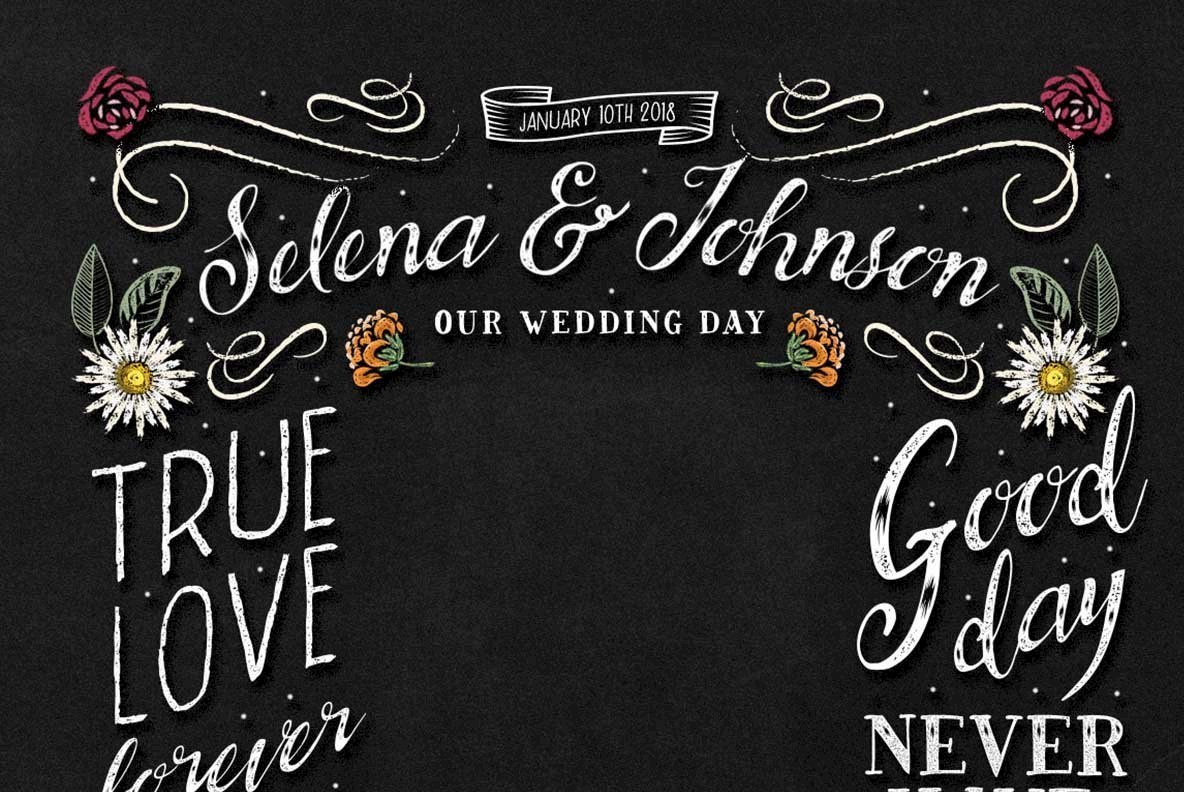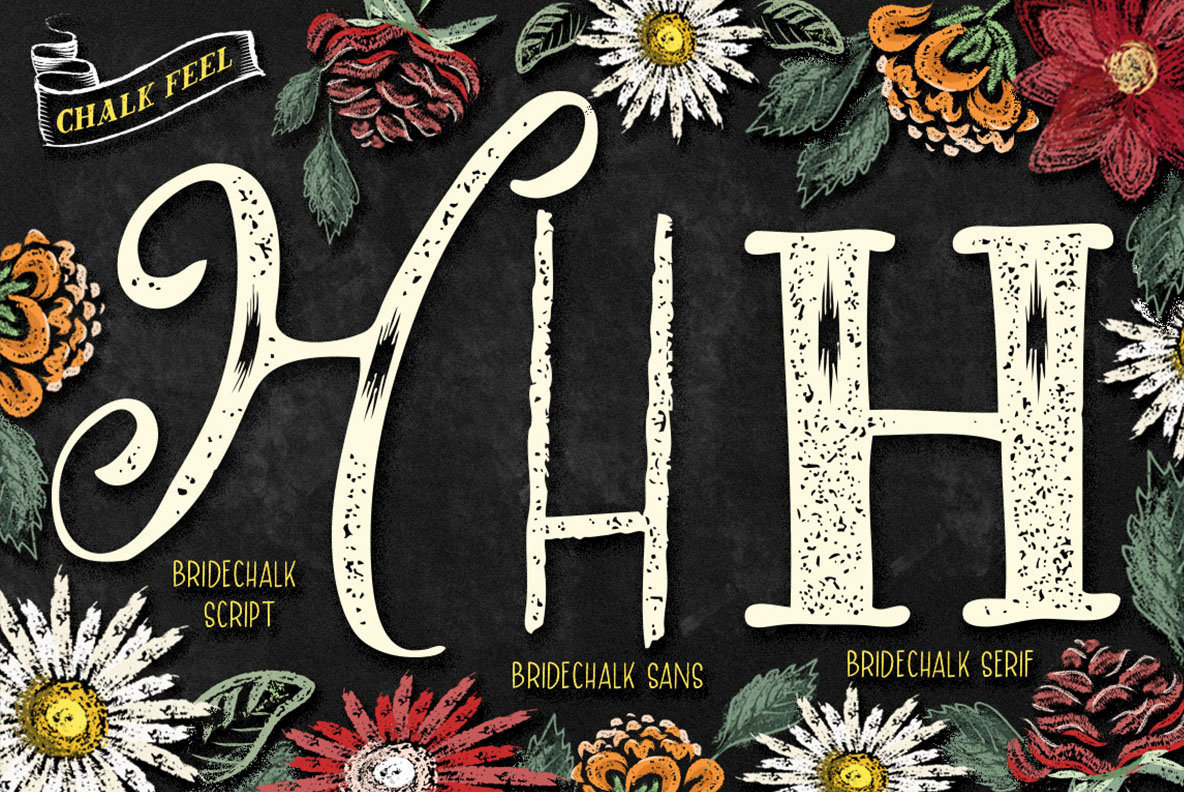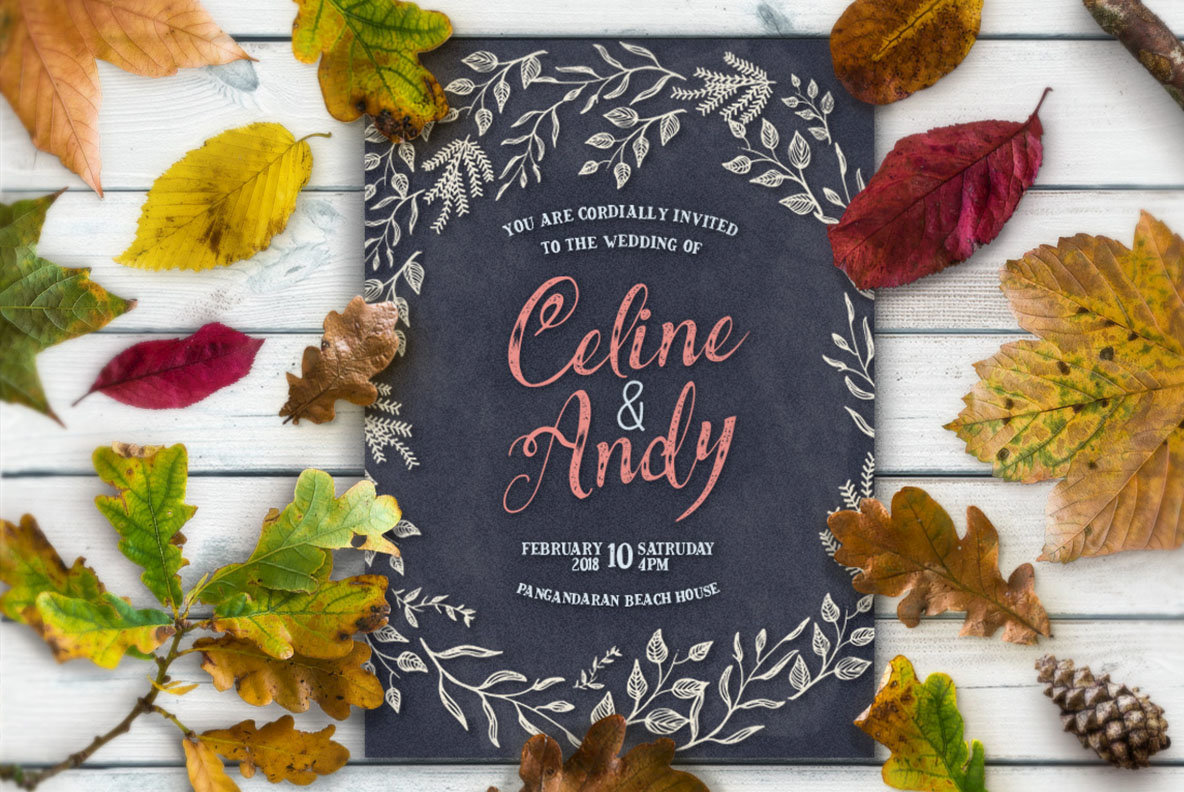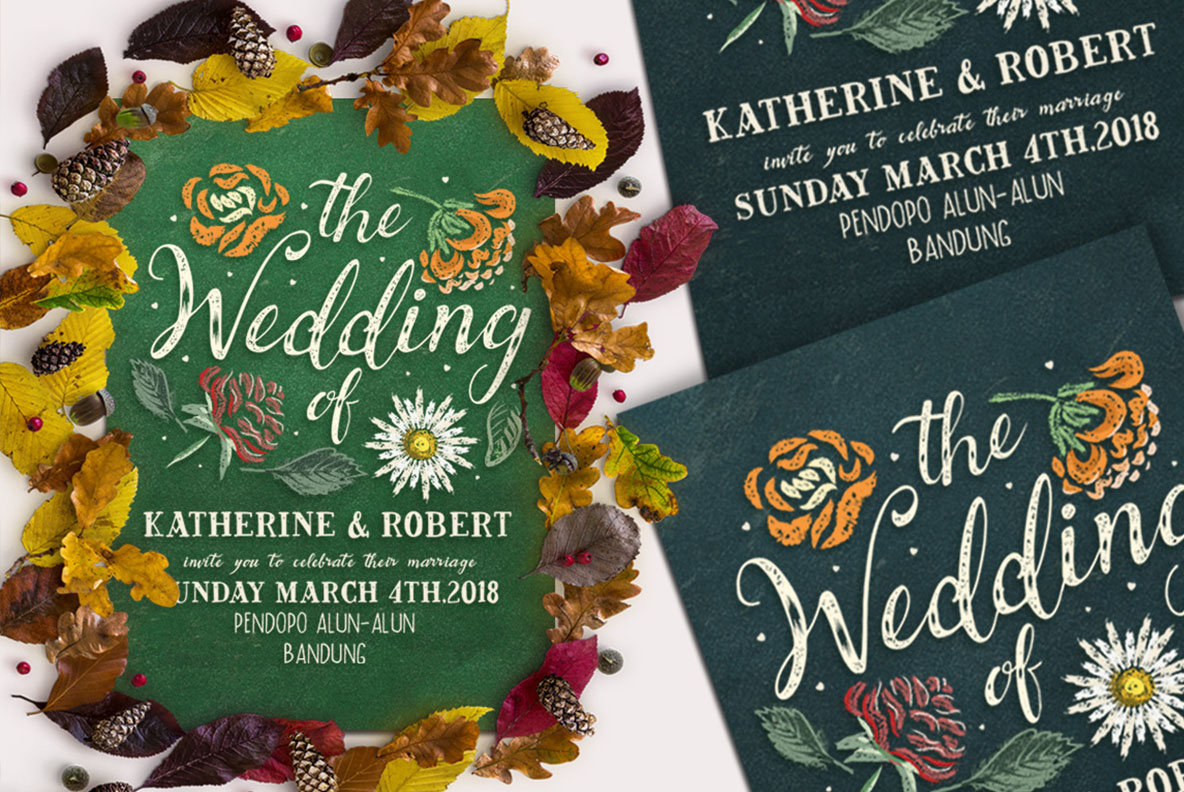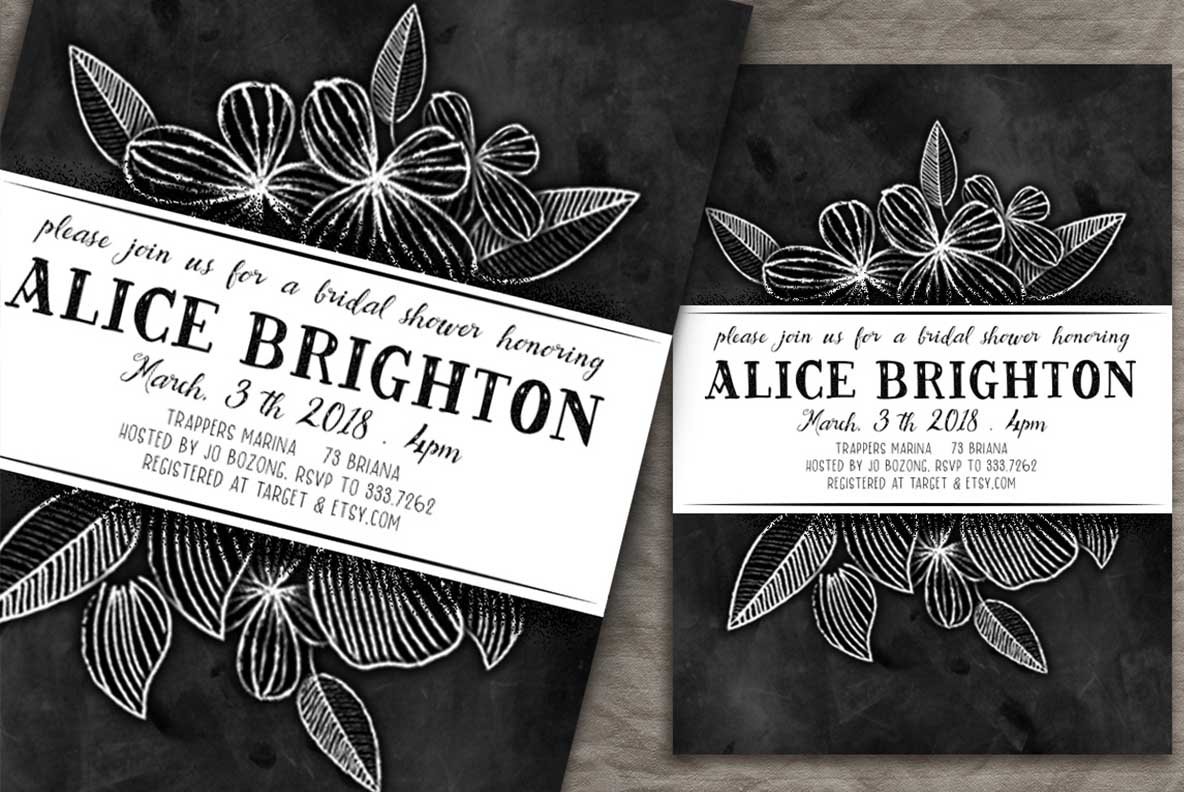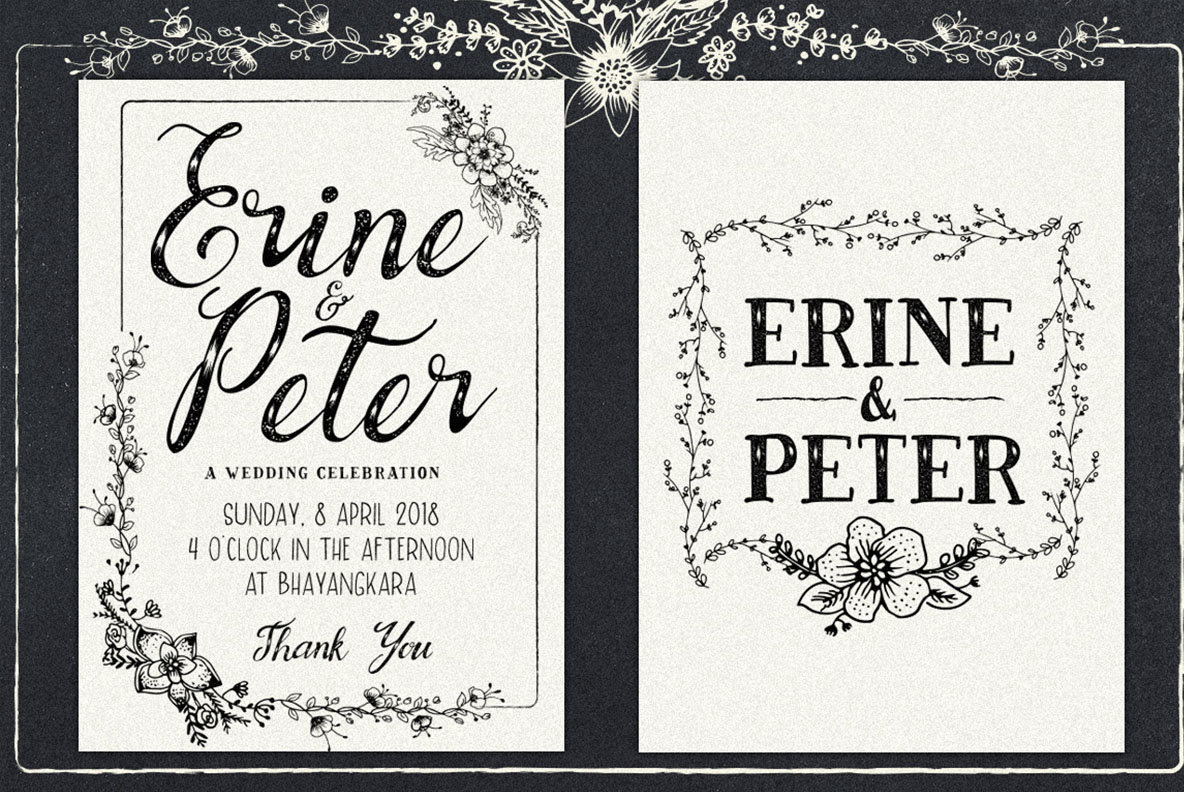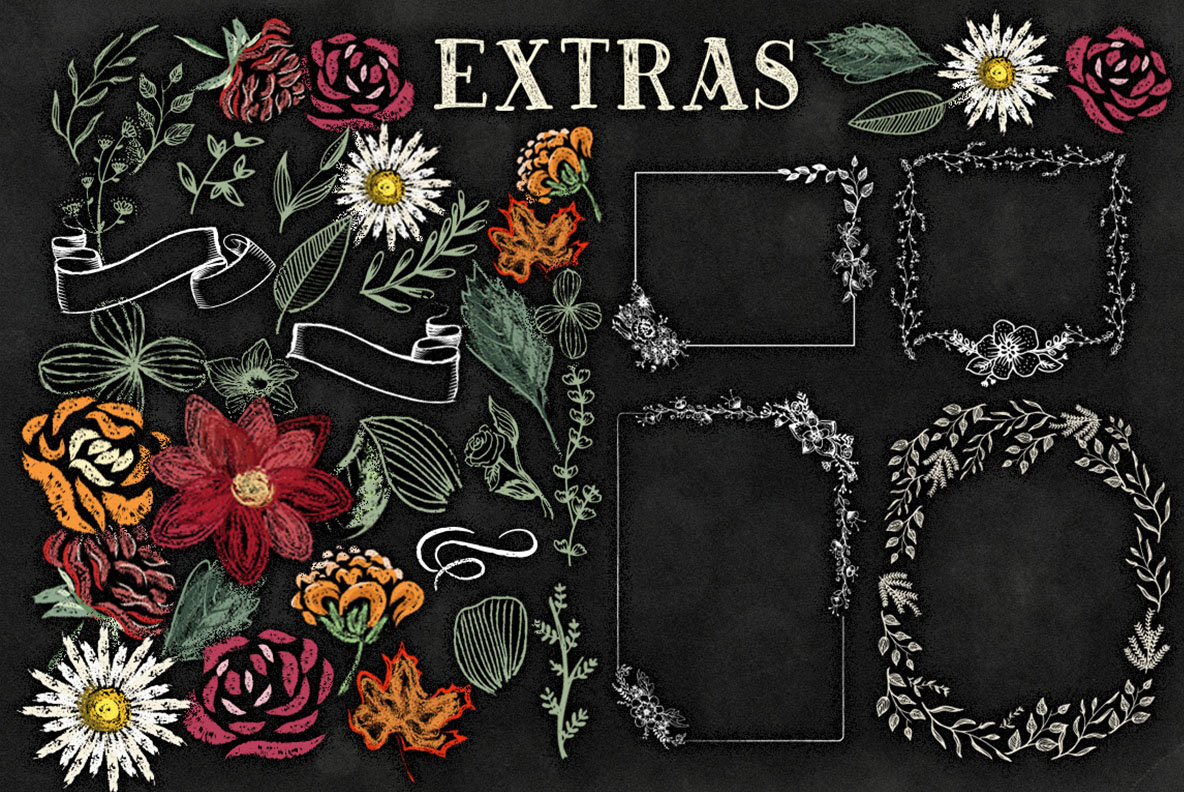
Bride Chalk Font
Bride Chalk draws its inspiration from the classic art of wedding backdrop chalk lettering. This versatile typeface is specially curated for weddings that embrace the chalk concept, making it perfect for photobooth backdrops, invitations, logos, and posters. Its stylistic extras add a unique flair, ensuring each design is both memorable and visually captivating.Bride Chalk: Elegant Typeface Inspired by Wedding Lettering